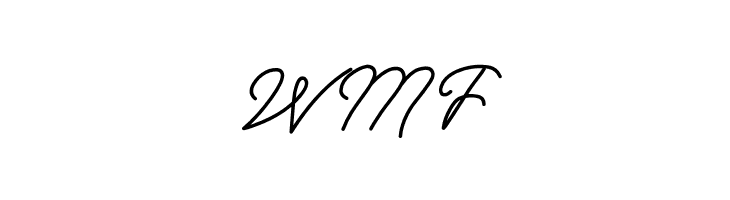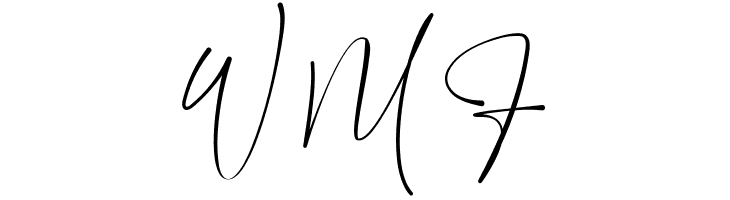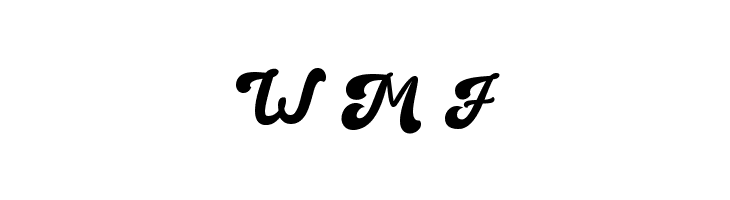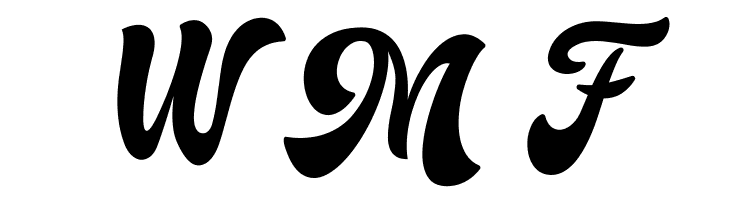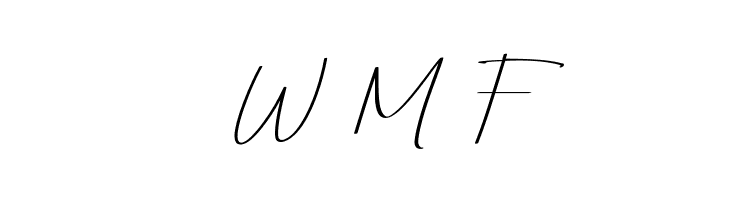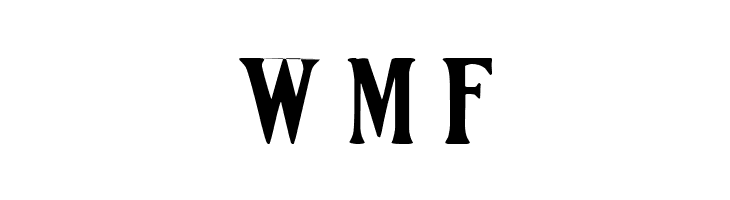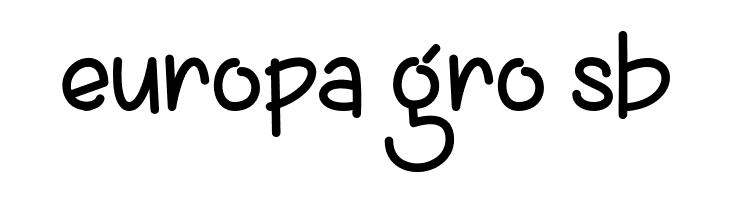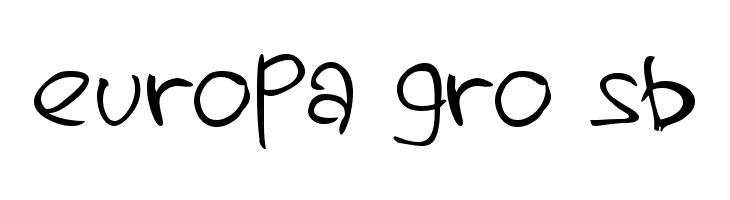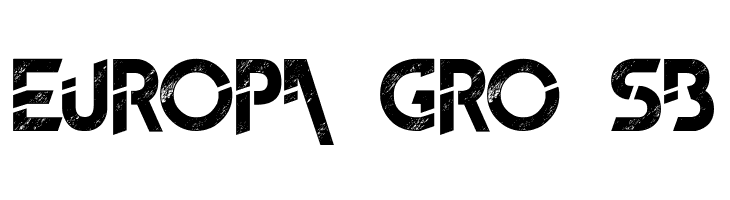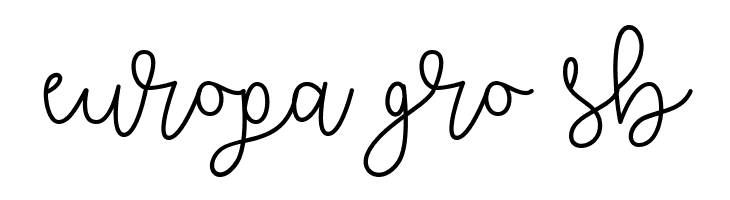
A flowing, elegant script font with connected, cursive characters.
A whimsical Halloween-inspired decorative font with themed illustrations in each character.
A spooky, dripping font perfect for Halloween themes.
A whimsical and decorative font with playful curls and ornate details.
A spooky, whimsical font ideal for Halloween themes.
A bold, expressive handwritten font with dynamic, irregular strokes.
A playful, Halloween-themed decorative font with unique character designs.
A bold, flowing script font with connected characters and dynamic curves.
An elegant and sophisticated cursive script font with fluid, connected strokes.
A bold, flowing script font with elegant curves and smooth connections.
A tall, narrow font with strong vertical emphasis and uniform strokes.
A cursive, handwritten-style font with elegant, flowing characters.
A graceful, flowing handwritten font with elegant, fluid strokes.
A flowing, cursive font with smooth, connected strokes and a casual elegance.
A modern, cursive font with smooth, flowing characters and consistent stroke width.
A dynamic, expressive handwritten font with fluid strokes and artistic flair.
A playful, bold handwritten font with a casual and dynamic style.
A bold, distressed font with a vintage, hand-printed appearance.
A bold, stencil-style font with strong, thick strokes and distinct cutouts.
A bold, decorative font with vintage-inspired outlined letters and shadow effects.
A bold, shadowed font with a three-dimensional effect, perfect for decorative use.
A playful, hand-drawn font with a whimsical and casual style.
An elegant, cursive font with flowing, intricate strokes.
An elegant, high-contrast font with modern and classic elements.
A dynamic, fluid handwritten font with elegant, flowing letterforms.